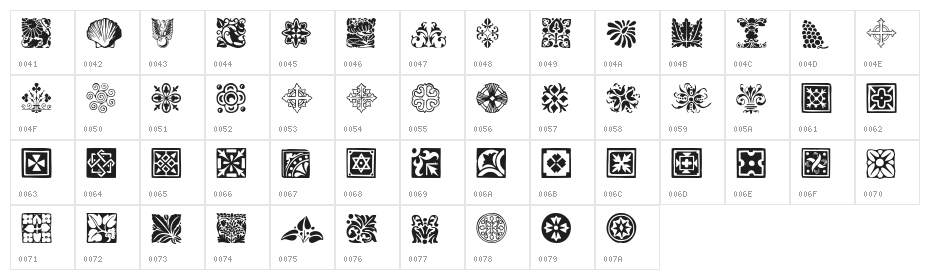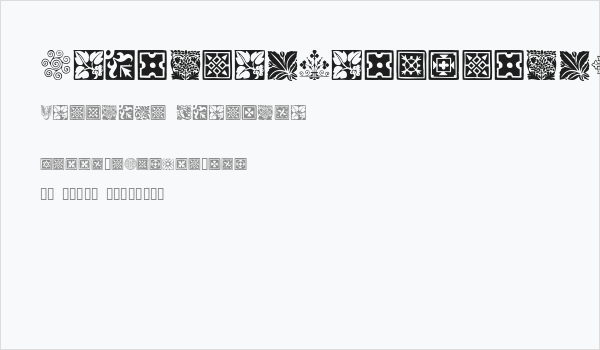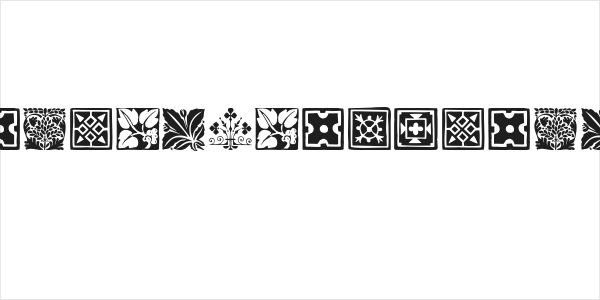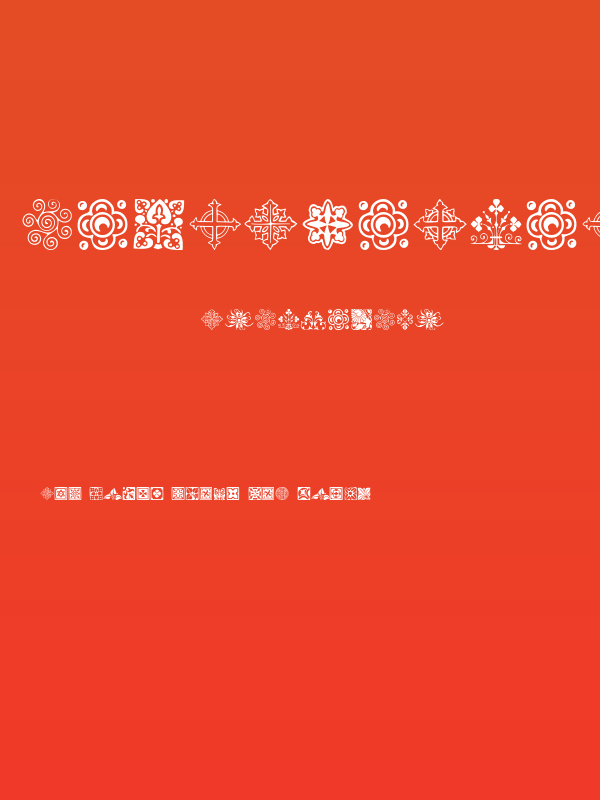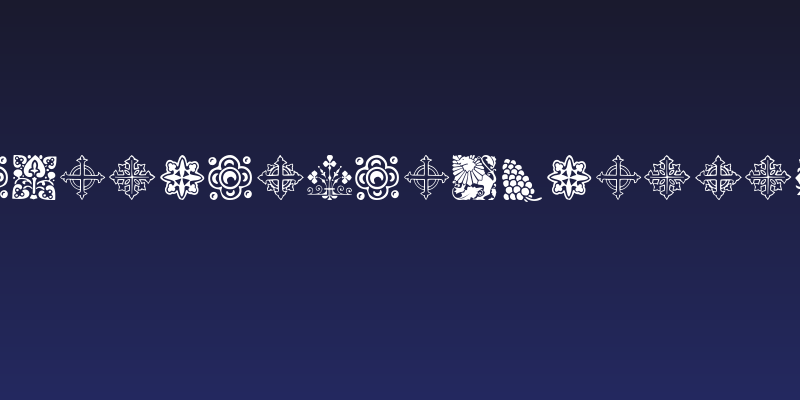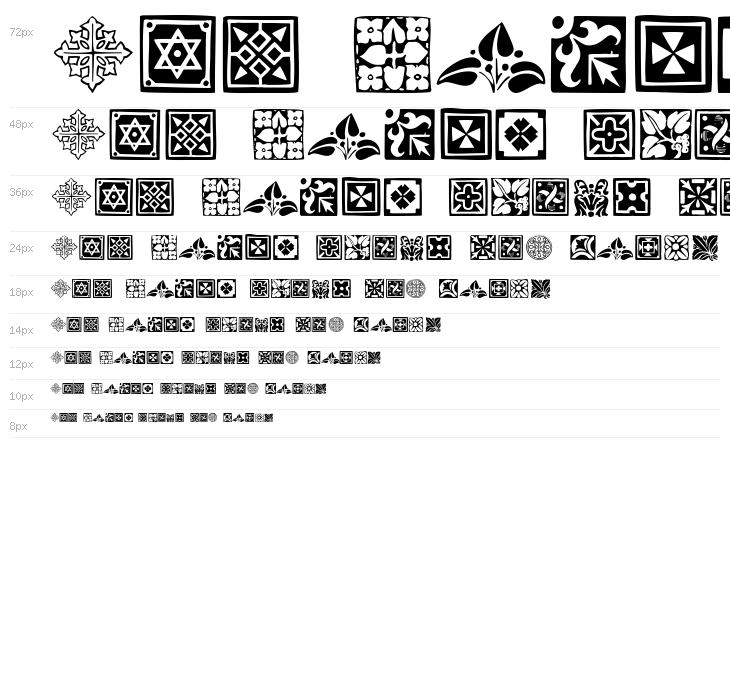
PrintersOrnamentsTwo Font
PrintersOrnamentsTwo Description
A decorative collection of intricate ornamental glyphs inspired by vintage printer's ornaments, featuring floral, geometric, and abstract motifs within square and circular frames. The designs are highly detailed, primarily black and white, and evoke a classic, ornamental style.
| Overall Style | Vintage, Decorative |
| Use Case | Borders, embellishments, decorative accents |
| Proposed Projects | Book covers, invitations, certificates, decorative borders, packaging, vintage-themed designs. |